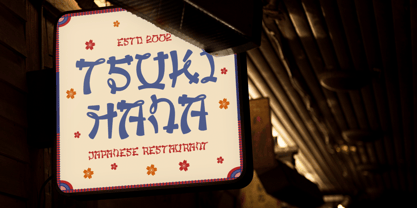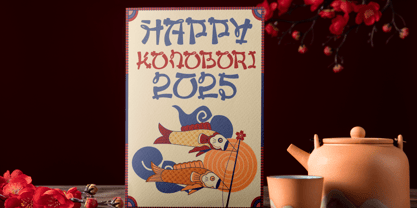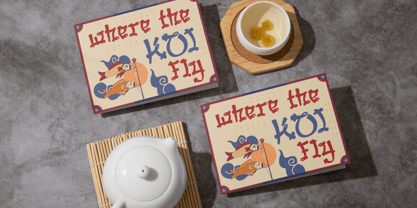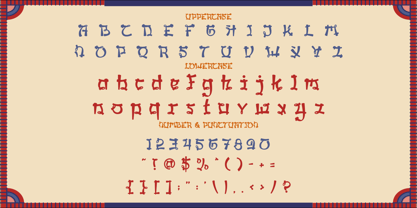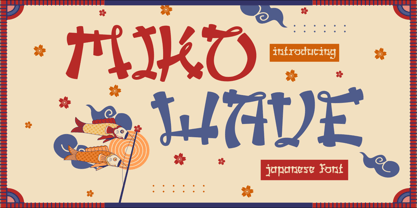
Miko Wave
by Shanaf
The Miko Wave Font Family was designed by Yesie Erma Yunita and published by Shanaf. Miko Wave contains 1 styles. More about this family
Miko Wave is a unique Japanese-style display font inspired by traditional Asian calligraphy and playful modern twists. Each letterform combines bold strokes with soft curves, creating a balance between strength and elegance. The font features distinctive loop accents and crossbars that resemble brush-painted kanji, making it stand out in any design. With both uppercase and lowercase sets, numbers, and punctuation, it offers versatility while keeping its cultural charm intact.
This font is perfect for projects that need an authentic Japanese aesthetic. It works beautifully for restaurant logos, packaging, posters, invitations, branding, stickers, greeting cards, and film titles. The intricate details bring a handcrafted feel, while the bold structure ensures readability even at large sizes. Whether you’re designing for cultural events, crafting products, or creating themed merchandise, Miko Wave adds character and an unmistakable Asian flair that draws attention and sets your work apart.